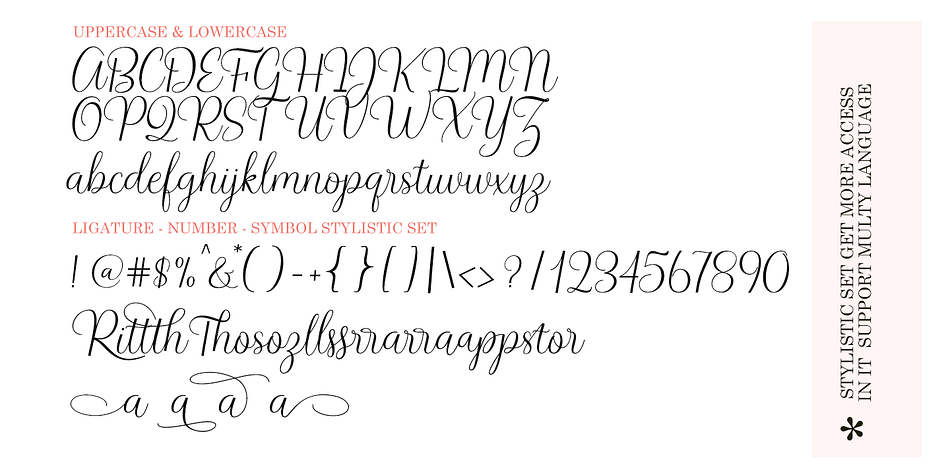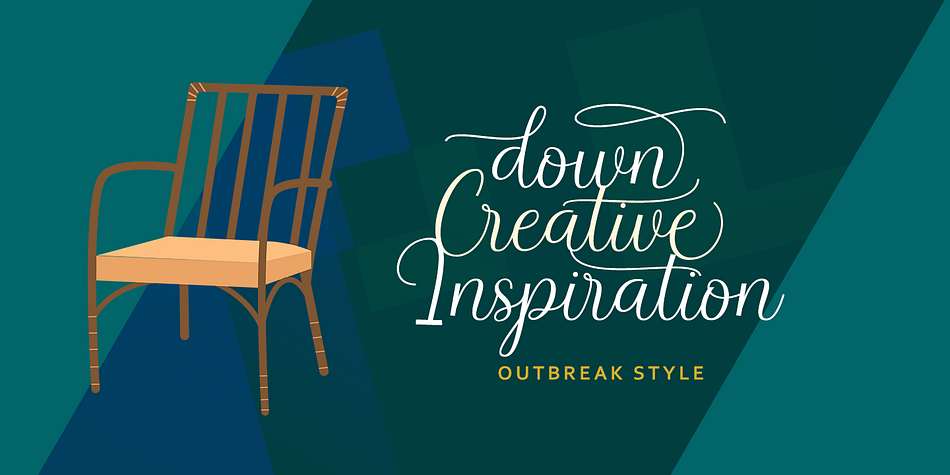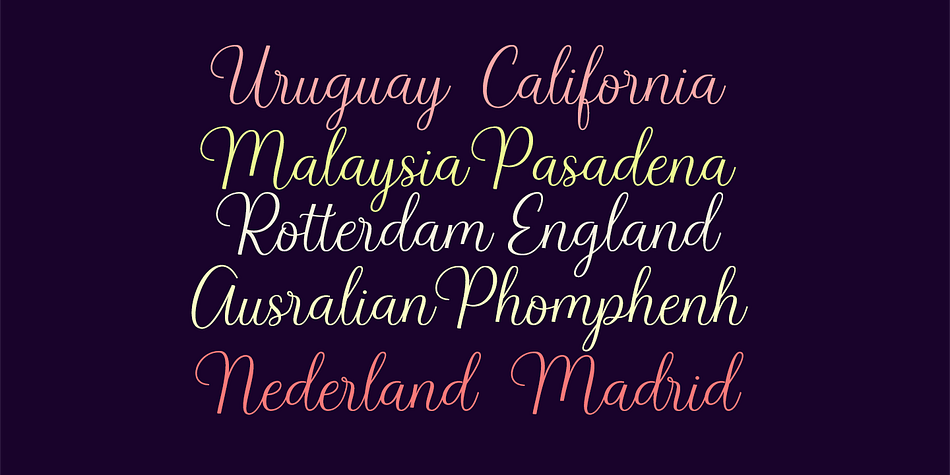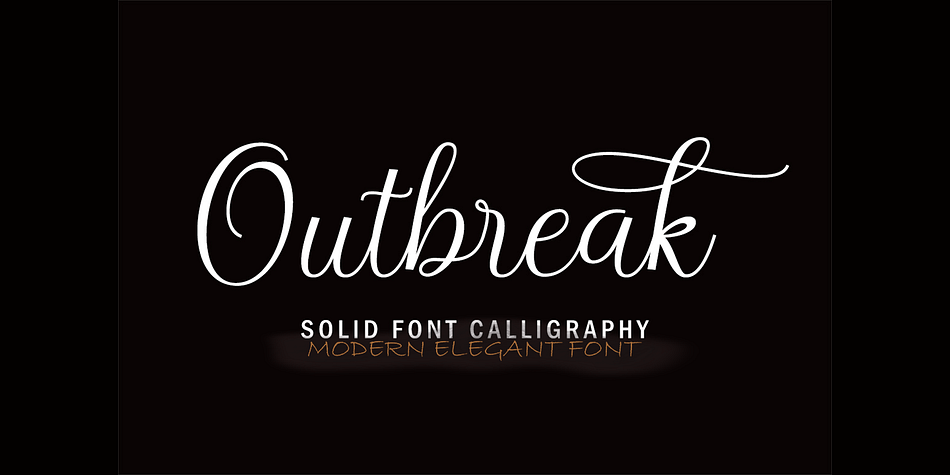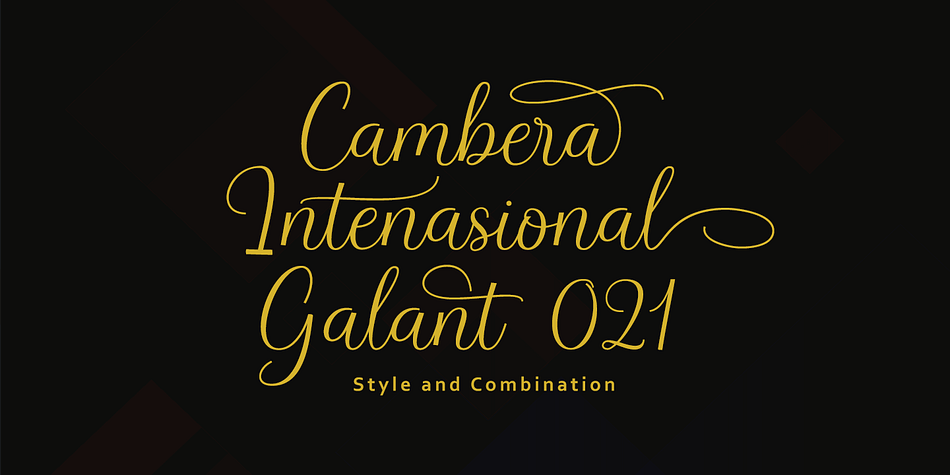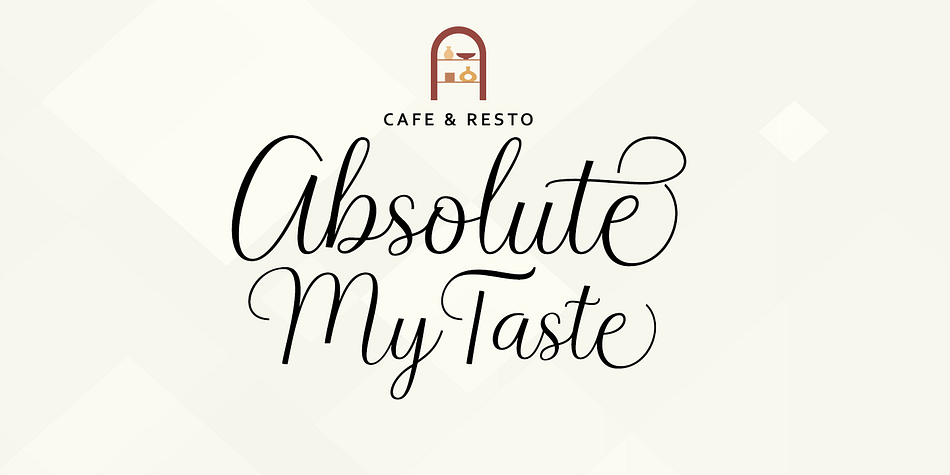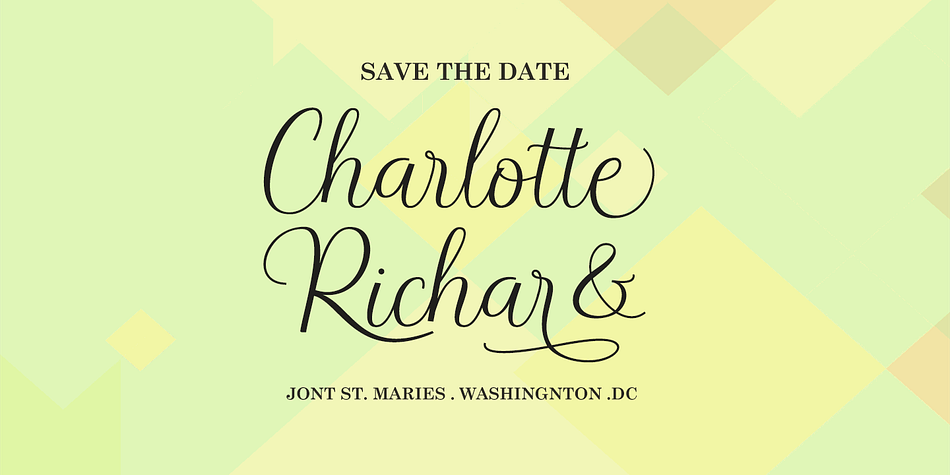
Outbreak
Outbreak is a modern calligraphy font family published by Gatype.
This thin, flowing typographic outline looks authentic, adding personality to your designs. Natural-looking handwriting has a variety of binding options and alternatives to create more diverse designs. Artistic swashes and elegant loops make this typeface more attractive.